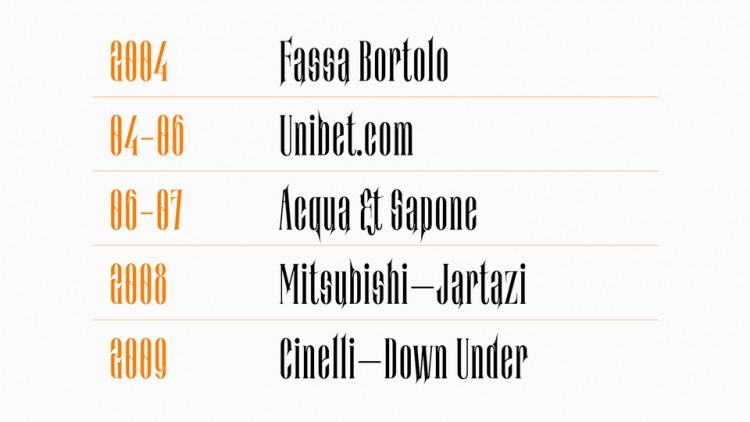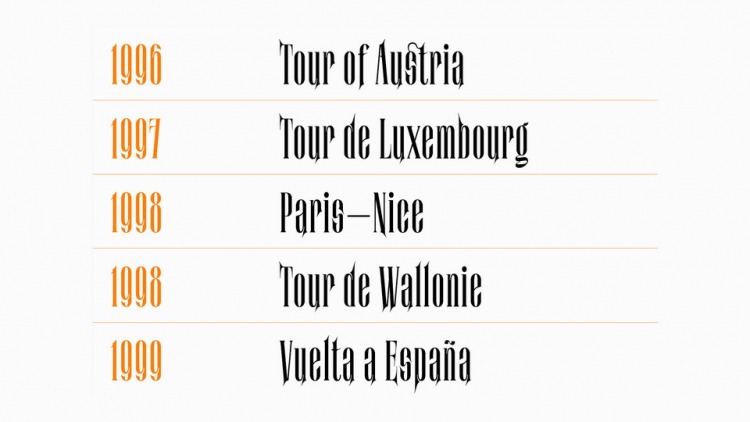
Vandenbroucke Font
Vandenbroucke Display Font
It’s an elegant and beautiful display serif font designed by Simon Bravard the first months of 2020. Sharp, contrasting, condensed, exuberant, this typeface pays tribute to the Belgian cyclist Franck Vandenbroucke, former international championship cyclist. Promised to a great future with his amazing results in his early professional career years in the late 1990s, he was involved in dope cases and had a drug problem. He tragically died in his hotel room during a trip to Senegal in 2009. An elegant biker with a unique style made of great panache, he had the gift of making people passionate when he was at the peak of his art. He is undoubtedly one of the legends of modern cycling.